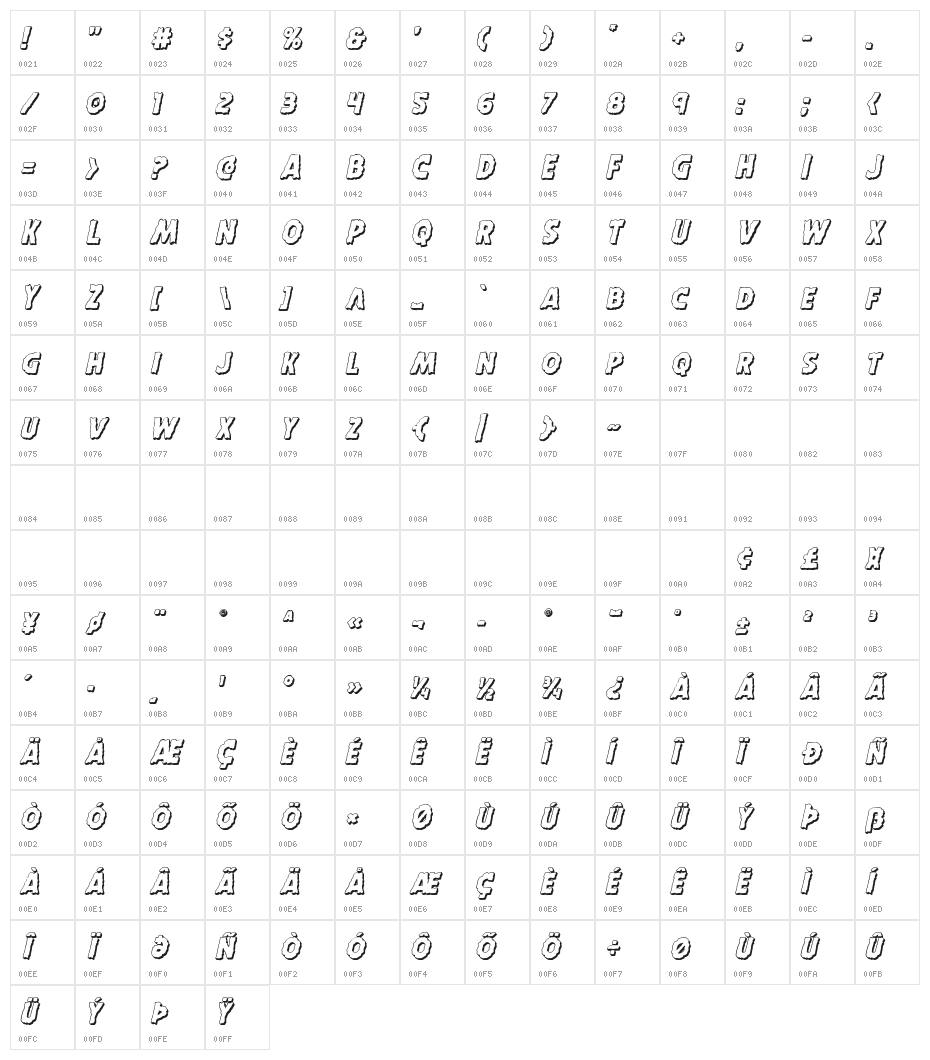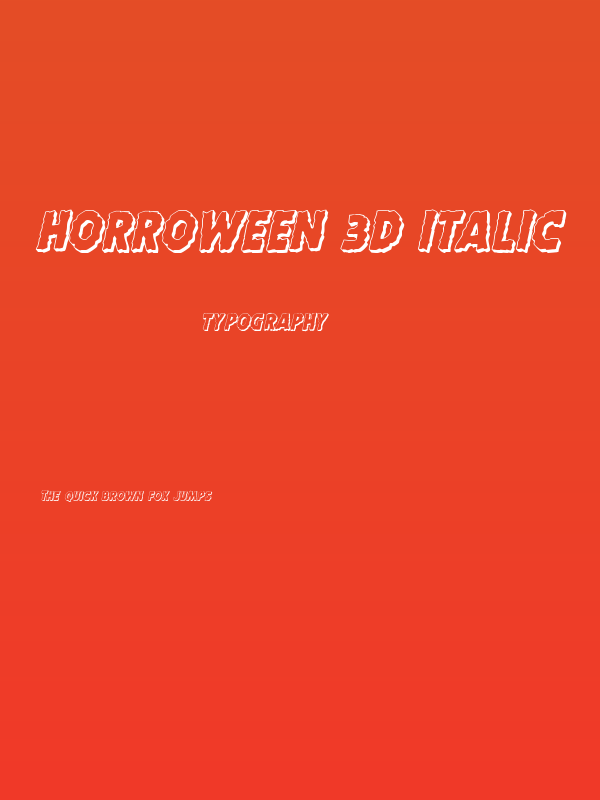
Horroween 3D Italic Font
Horroween 3D Italic Description
This font features a bold, three-dimensional style with a playful and slightly spooky appearance. The letters have a rugged, jagged edge that gives them a carved, stone-like texture, reminiscent of Halloween themes. The italic slant adds a dynamic and energetic feel, enhancing its decorative nature. The characters are well-defined with a consistent thickness, creating a strong visual impact. The numbers and special characters maintain the same stylistic elements, ensuring uniformity across all glyphs.